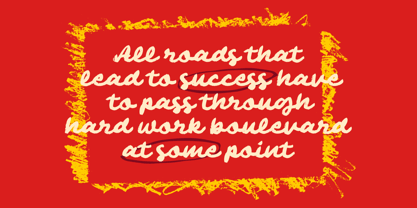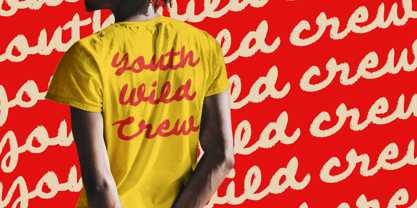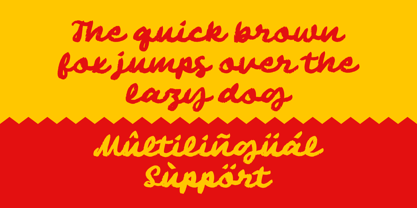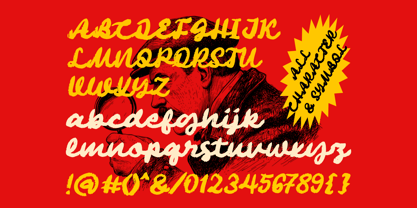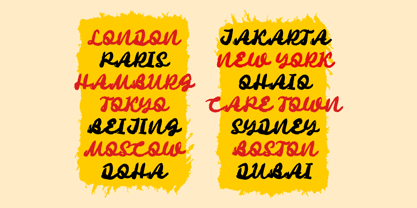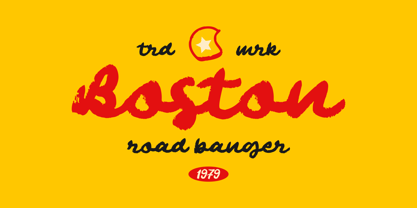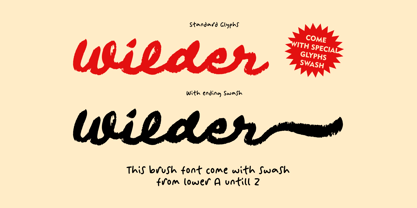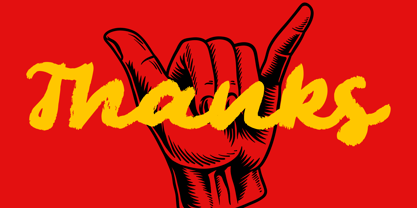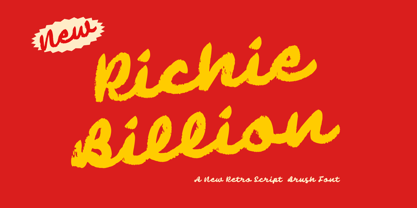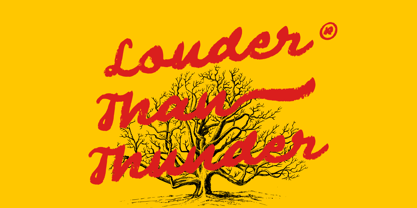
Richie Billion
by Anxietype Foundry
The Richie Billion Font Family was designed by Annas Rifky Anhar and published by Anxietype Foundry. Richie Billion contains 1 styles.
Emanating with graphic dynamism, Richie Billion captures the essence of creativity in its Bold Brush Script Font. Designs by the artistic at Anxietype Foundry. this font transcends conventional boundaries to accommodate an array of design requirements. From constructing eye-catching logos to cementing brand identities that linger in minds, Richie Billion is the brush stroke that painters would love to have in their palette. Perfect for those who dare to push the envelope and envisage beyond the run-of-the-mill designs!